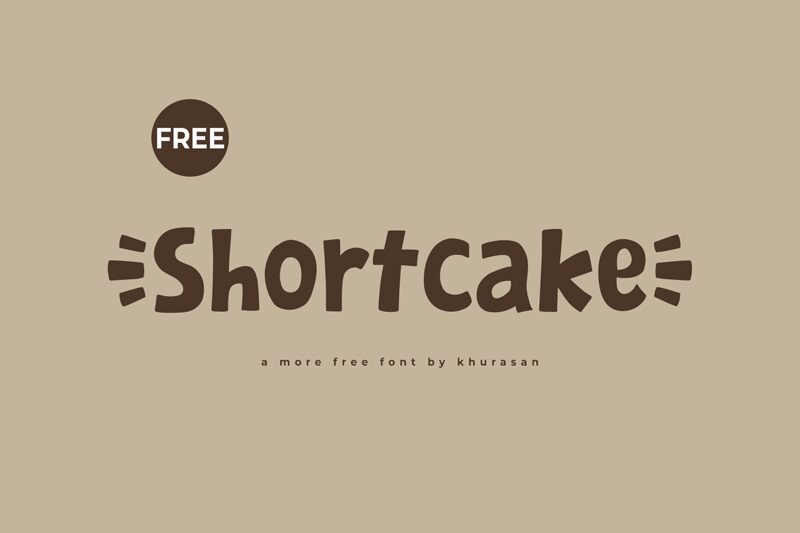
Shortcake
Shortcake font, designed by Khurasan, is a delightful display typeface that encapsulates the playful essence of cartoon aesthetics. With its bold character and whimsical curves, it brings a sense of joy and vibrancy to any design. The lightness of the font adds an airy quality, while its striking presence ensures it stands out effortlessly.
Ideal for children’s books, playful branding, or festive event invitations, Shortcake's charm lies in its ability to evoke nostalgia and fun. This font effortlessly captures attention without overwhelming the viewer, making it perfect for headlines or signage that aims to engage and entertain. Whether conveying laughter or creativity, Shortcake is a versatile choice that enhances visual storytelling across various contexts.